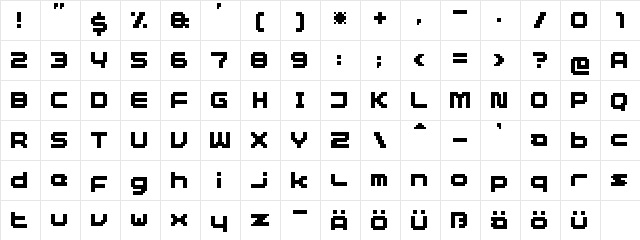
Supergirl Medium
Design Context for Supergirl Typeface
Supergirl takes a measured approach to typography — its balanced proportions and neutral character make it a reliable workhorse for both digital and print work.